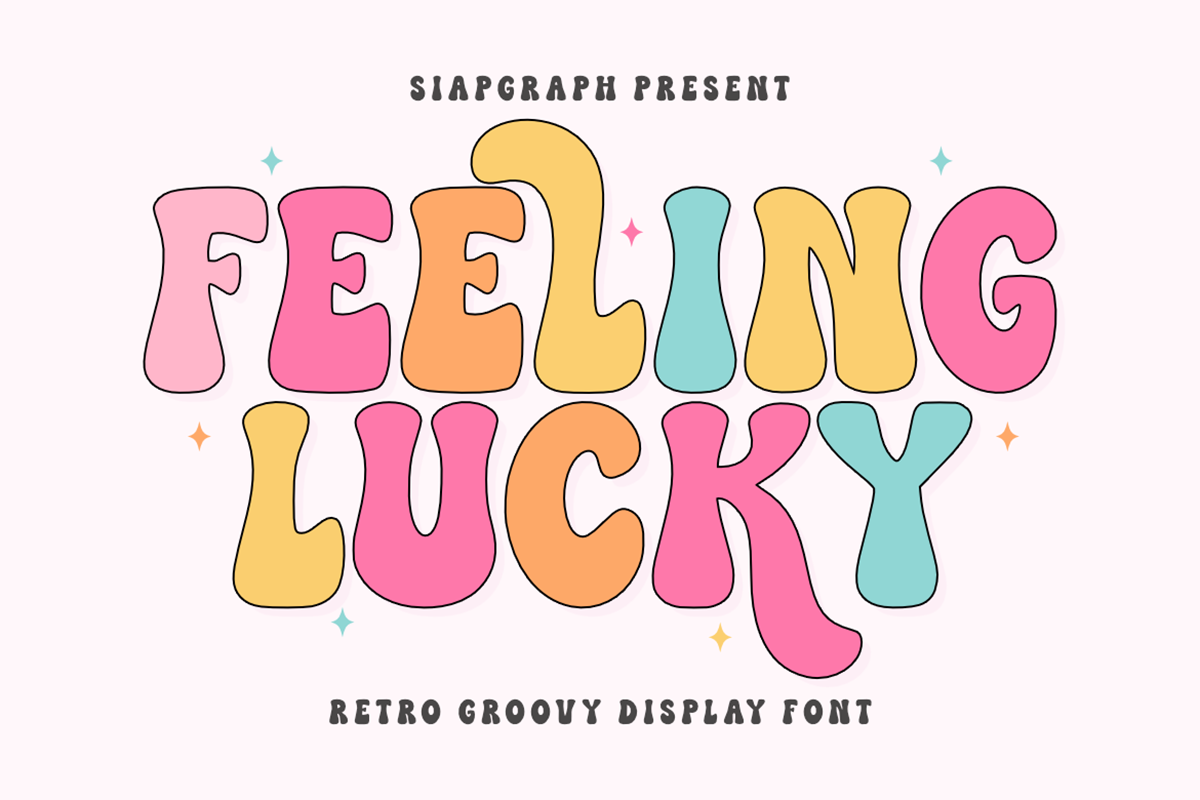
Feeling Lucky – Retro Groovy Font
Feeling Lucky – Retro Groovy Font is a display font inspired by the vibrant, bubbly aesthetic of 1970s typography. It is a playful font with optimistic spirit. Featuring soft, rounded curves and a fun, bouncy rhythm, this typeface is designed to bring a nostalgic yet modern charm to your creative projects.
This font is a must-have for the Craft, POD (Print On Demand), and DIY communities. Its thick, bold structure and smooth edges make it exceptionally easy to use for vinyl cutting, weeding, and high-quality sublimation.